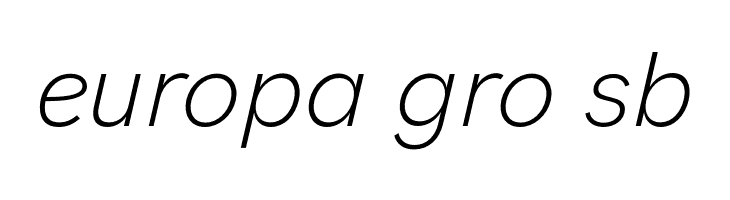
A modern, light, italic sans-serif font with sleek, elongated characters.
A modern, clean typeface with balanced proportions and consistent stroke width.
A modern, sans-serif typeface with clean lines and balanced proportions.
A modern, italic sans-serif font with medium weight and balanced proportions.
A modern, italic sans-serif typeface with clean lines and balanced proportions.
A modern, geometric sans-serif typeface with clean lines and uniform strokes.
A modern, geometric sans-serif font with balanced proportions.
A modern, italic sans-serif font with clean lines and balanced proportions.
A modern sans-serif font with a slight italic slant, offering a clean and dynamic look.
A modern, geometric sans-serif font with uniform strokes and clear characters.